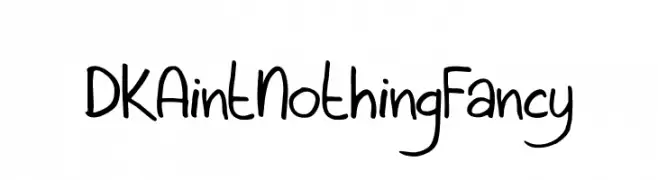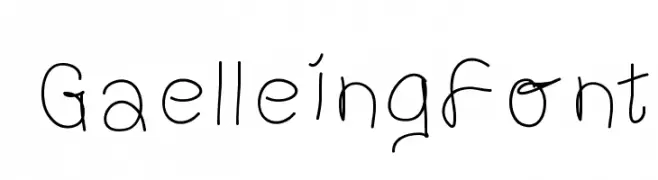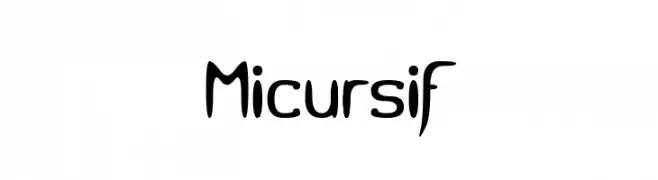
( Christophe Alglave - www.christophealglave.com )
A modern, elegant font with high contrast and slender letterforms.
( DM Letter31 )
A playful, hand-drawn font with elongated, narrow characters and a whimsical style.
( Darrell Flood )
A playful, hand-drawn font with bold, rounded characters.
( Darrell Flood )
A playful, handwritten font with a casual and informal style.
( Deb Kerkhof - www.xquizart.blogspot.com )
A playful, casual handwritten font with irregular, organic letterforms.
( Dismantle Destroy - Matthew Tyndall - creativemarket.com/Dismantle )
A playful, casual handwritten font with an organic flow.
( Gaelleing )
A whimsical and playful font with curly, flowing letterforms.
( Gaël Chrétien )
A playful, hand-drawn font with smooth curves and dynamic strokes.
( Graphix Line Studio )
A playful, handwritten font with smooth, rounded strokes and a casual style.
( Hanoded - David Kerkhoff - www.hanodedfonts.com )
A playful, handwritten font with smooth, rounded edges and a casual style.